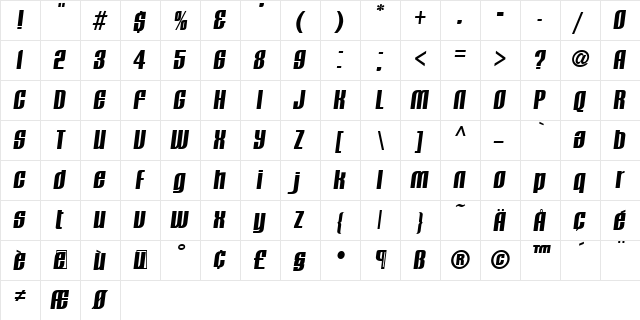
CAVALIER XBOLD Normal Font Preview
CAVALIER XBOLD Normal
Design Context for CAVALIER XBOLD Typeface
CAVALIER XBOLD is a composed and adaptable typeface that performs quietly and consistently across a wide range of design contexts. The heavy weight commands attention and anchors typographic hierarchies.